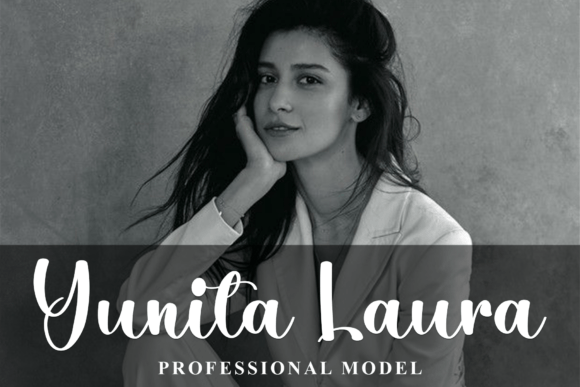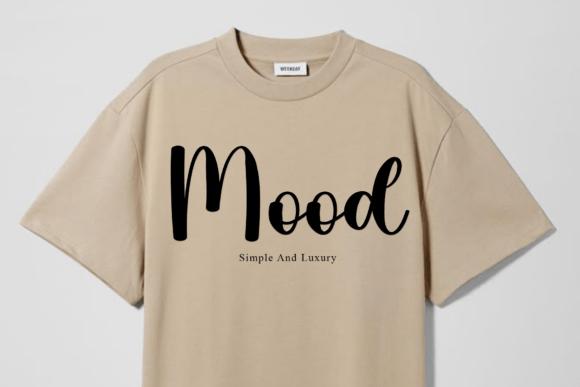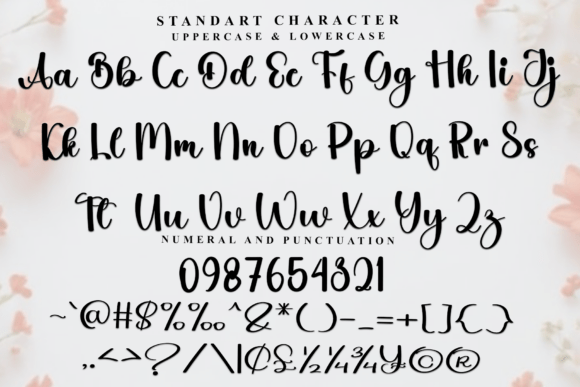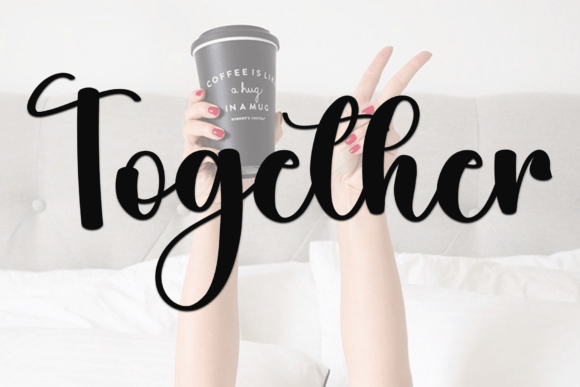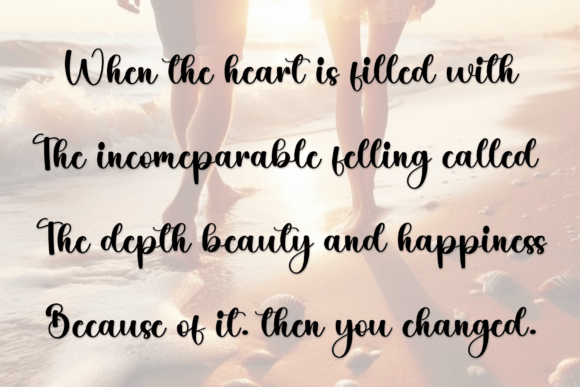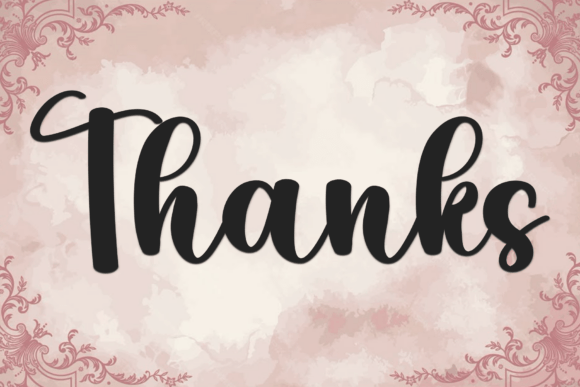
Introducing Birth Font: The Ultimate Holiday Typeface for Designers and Crafters
The holiday season is upon us, and what better way to get into the spirit than with a festive and merry typeface that captures the essence of this special time of year? Look no further than Birth Font, a decorative and whimsical font that adds a touch of enchantment to your designs. Whether you’re a designer, crafter, or DIY enthusiast, this font is perfect for greeting cards, gift tags, and holiday-themed projects that require a cheerful and nostalgic ambiance.
The Magic of Birth Font
Birth Font is more than just a typeface – it’s an experience. With its intricate details and playful flair, this font brings a sense of wonder and magic to your words. Imagine being able to create stunning holiday designs that transport your audience to a world of festive cheer and joy. Whether you’re designing for print or digital, Birth Font is the perfect choice for adding a touch of holiday sparkle to your projects.
Key Features of Birth Font
• PUA Encoded: Birth Font is PUA encoded, which means you can access all of the amazing glyphs and ligatures with ease. This makes it simple to create beautiful and intricate designs that showcase the full potential of this font.
• Decorative Elements: Birth Font features a range of decorative elements that add a touch of whimsy and flair to your designs. From intricate swashes to playful glyphs, this font has everything you need to create stunning holiday designs.
• Whimsical Flair: This font has a distinctly whimsical feel that’s perfect for holiday designs. Whether you’re creating greeting cards, gift tags, or holiday-themed projects, Birth Font adds a touch of magic and wonder to your words.
• Perfect for Holiday Designs: Birth Font is specifically designed for holiday-themed projects. Whether you’re a designer, crafter, or DIY enthusiast, this font is perfect for creating stunning holiday designs that capture the spirit of the season.
Uses for Birth Font
So what can you create with Birth Font? The possibilities are endless! Here are a few ideas to get you started:
• Greeting Cards: Create stunning holiday greeting cards that showcase the magic of Birth Font. Perfect for Christmas, Hanukkah, or any other holiday celebration.
• Gift Tags: Add a touch of festive flair to your gift tags with Birth Font. Perfect for presents, gift baskets, or any other holiday gift-giving occasion.
• Holiday-Themed Projects: From holiday-themed party invitations to festive social media graphics, Birth Font is perfect for any holiday project that requires a touch of whimsy and flair.
• Stationery and Paper Crafts: Birth Font is perfect for adding a touch of holiday magic to your stationery and paper crafts. From holiday-themed journal pages to festive paper flowers, this font is a must-have for any paper crafter.
Tips for Using Birth Font
Here are a few tips for getting the most out of Birth Font:
• Experiment with Different Sizes: Birth Font looks great in a range of sizes, from small and delicate to large and bold. Experiment with different sizes to find the perfect fit for your project.
• Pair with Other Fonts: Birth Font pairs beautifully with other fonts, especially those with a more traditional or vintage feel. Try pairing it with a serif font for a classic look or a script font for a more whimsical feel.
• Use the Glyphs and Ligatures: Don’t be afraid to get creative with the glyphs and ligatures in Birth Font. These special characters can add a touch of magic and wonder to your designs.
In conclusion, Birth Font is the perfect choice for designers and crafters looking to add a touch of holiday magic to their projects. With its decorative elements, whimsical flair, and PUA encoding, this font is a must-have for any holiday design project. Whether you’re creating greeting cards, gift tags, or holiday-themed projects, Birth Font is sure to bring a cheerful and nostalgic ambiance to your words. So why wait? Download Birth Font today and let your typography shine with the magic of the holiday season!